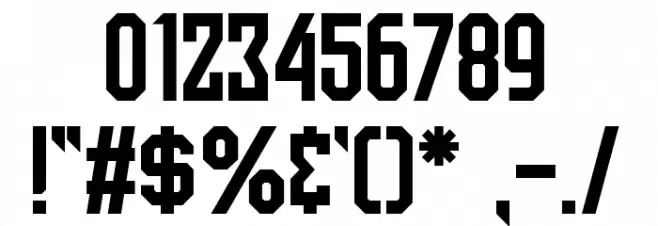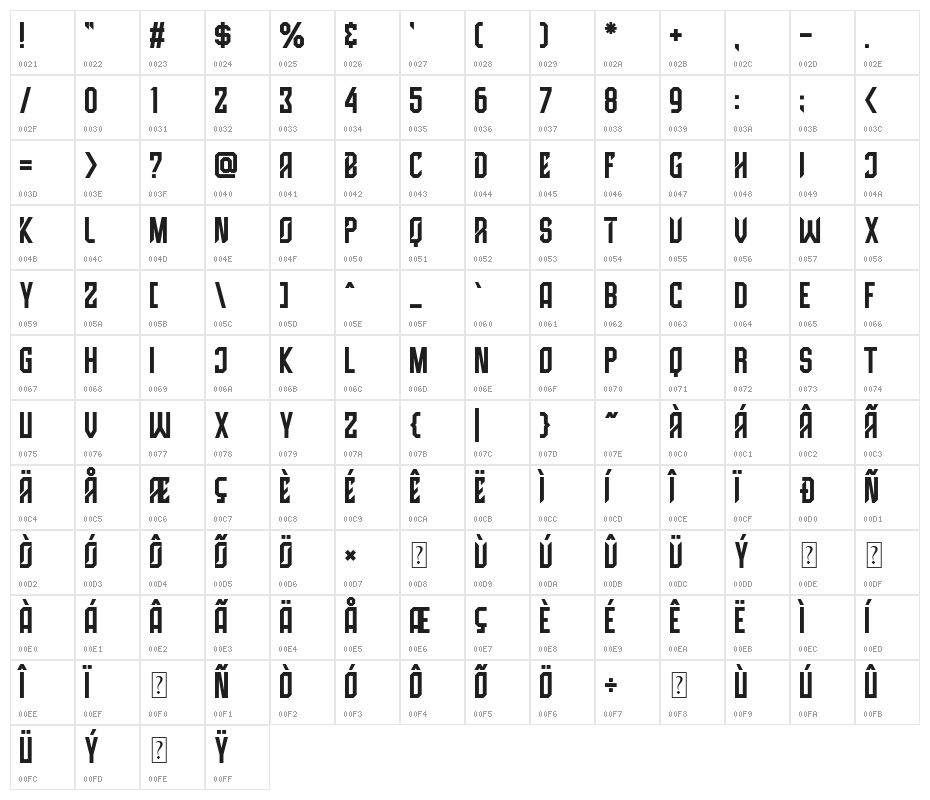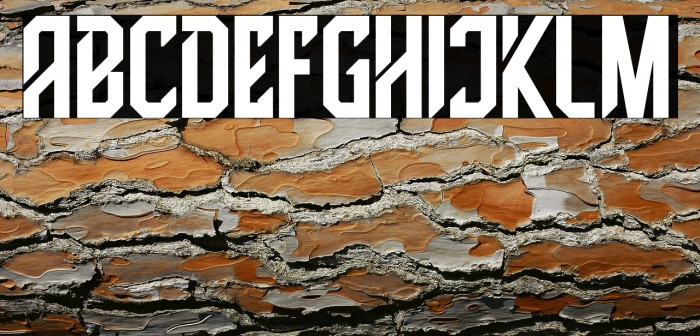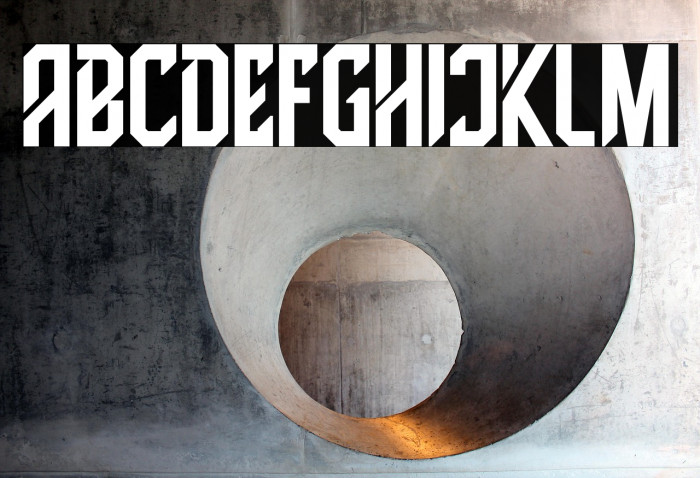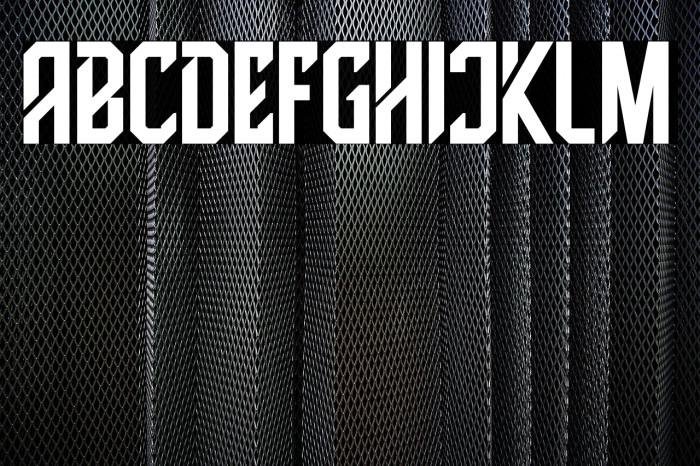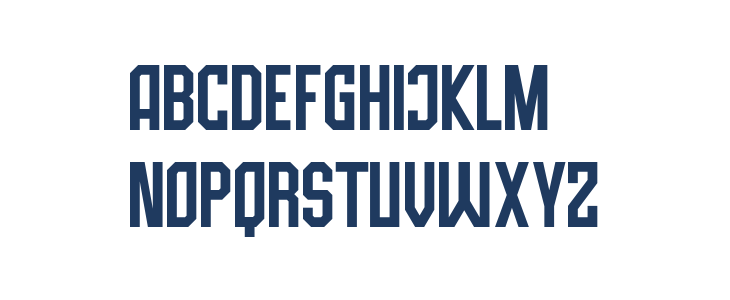
High Jersey Font
High Jersey Description
This font features a bold and striking design, characterized by its angular and geometric letterforms. The uppercase letters are particularly prominent, with sharp edges and a blocky appearance that conveys strength and modernity. The numbers and special characters maintain this bold aesthetic, ensuring consistency across all glyphs. The font's style is reminiscent of sports jerseys or athletic branding, making it ideal for projects that require a sense of energy and dynamism. Its high contrast and thick strokes make it highly legible from a distance, enhancing its suitability for impactful headlines or signage.
| Proposed Projects | Sports team branding, athletic event posters, dynamic logo designs, and bold headlines. |